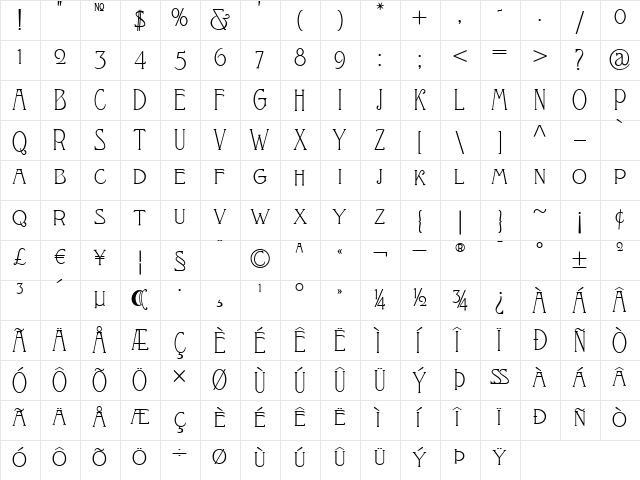
Kenosha Antique NF Regular
Design Context for Kenosha Antique NF Typeface
Kenosha Antique NF has the warm character of retro typography — evoking diners, record sleeves, and the golden age of print advertising.
Font Pairing: Combine Kenosha Antique NF with a simple slab or neutral sans — period-accurate companions reinforce the vintage feel without competing for attention.
Pro Tip: Use Kenosha Antique NF for headlines and pull quotes rather than body copy — its personality is best appreciated in short, focused bursts.